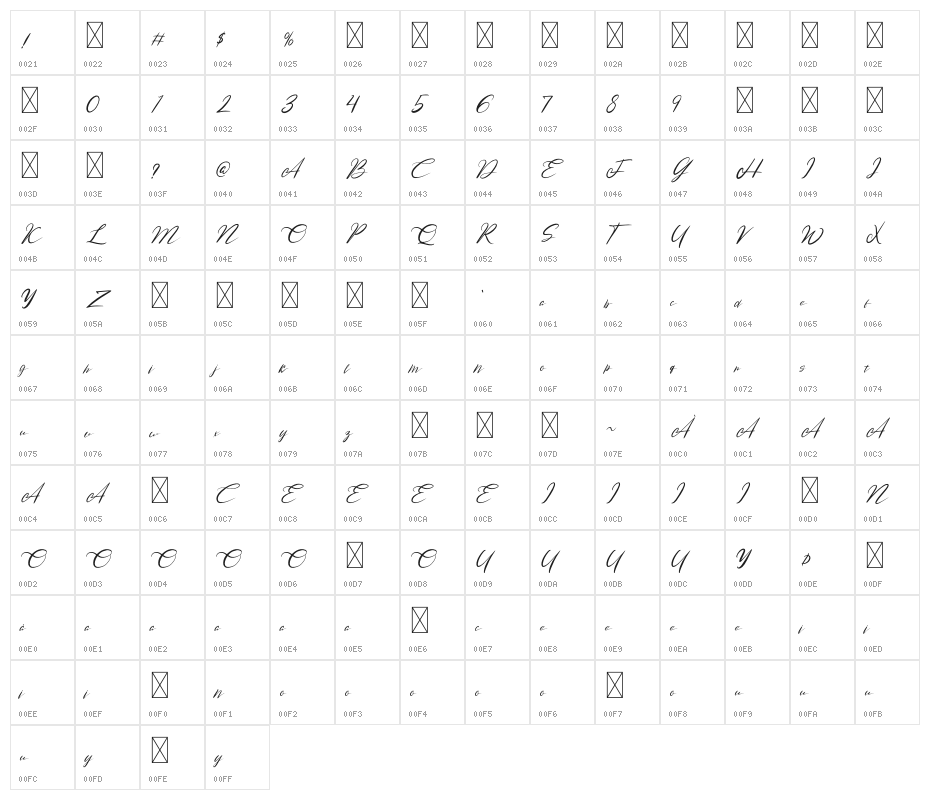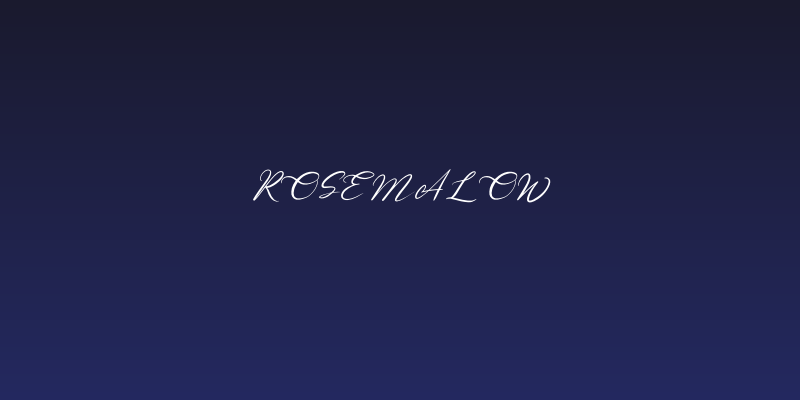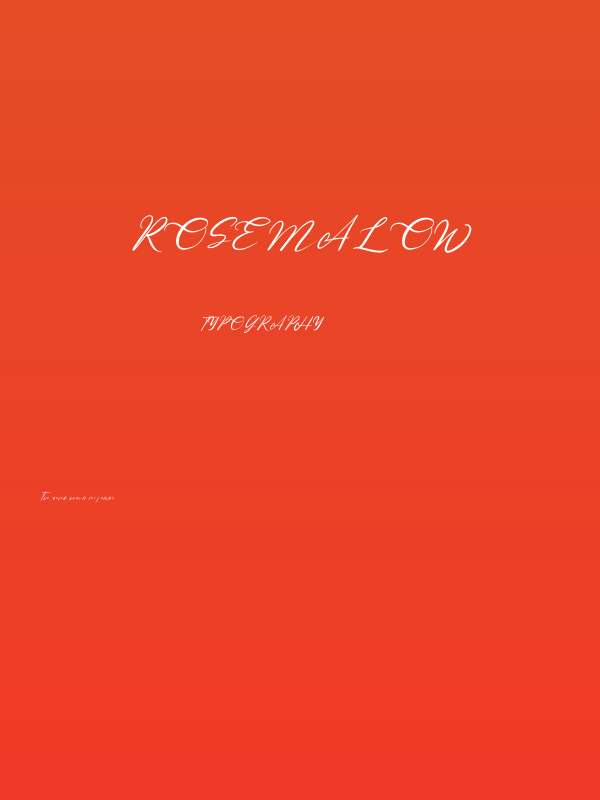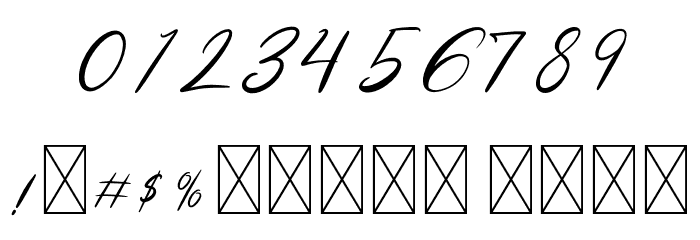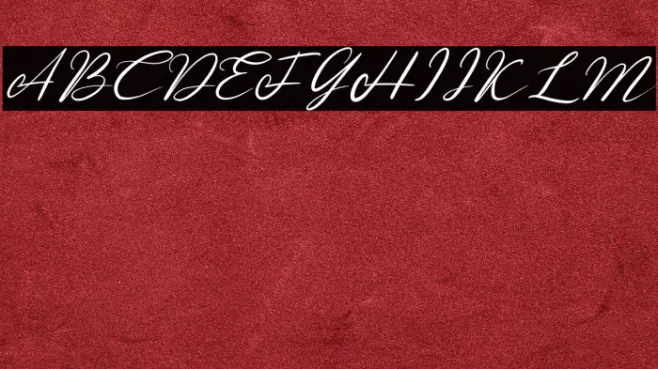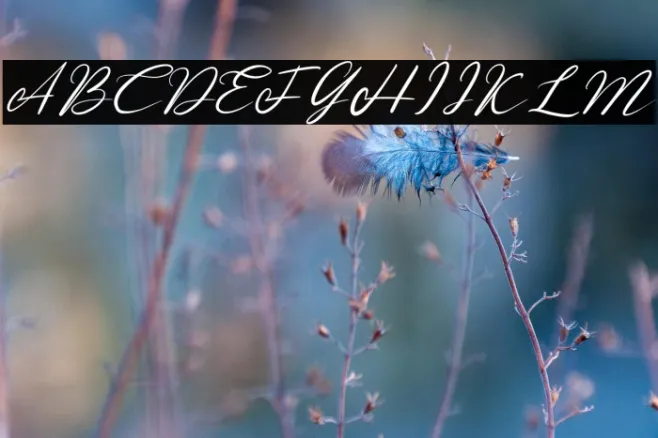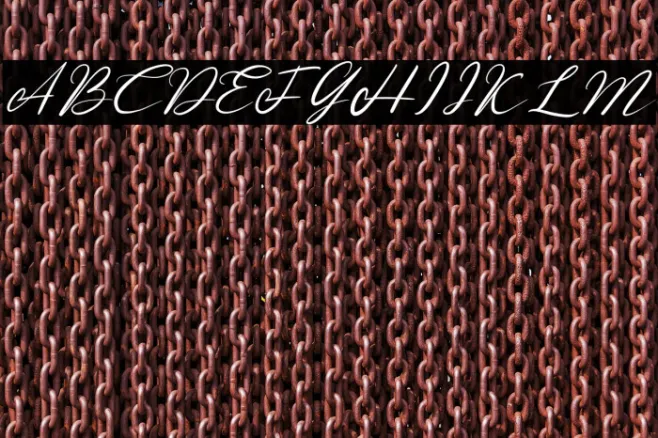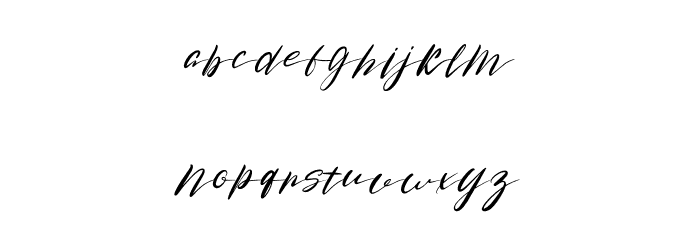
Rose Malow Font
Rose Malow Description
This elegant script font features a flowing, cursive style with smooth, connected strokes. The uppercase letters are characterized by their graceful loops and flourishes, while the lowercase letters maintain a consistent, fluid motion. The numerals are designed with a similar flair, ensuring a cohesive look across all characters. The font's overall appearance is sophisticated and artistic, making it ideal for projects that require a touch of elegance and refinement. The special characters are crafted with the same attention to detail, enhancing the font's versatility.
| Proposed Projects | Ideal for wedding invitations, elegant branding, greeting cards, and high-end product packaging. |